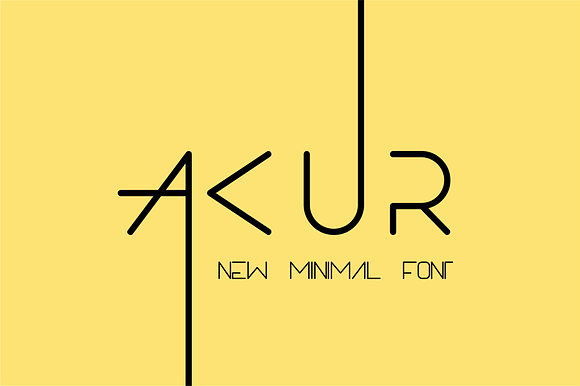
AKUR Font
AKUR is simple but significant, and defined by its crisp edges and modern touches. It is designed for optimal legibility. An all caps sans-serif, AKUR makes a statement without making a scene.
AKUR Font by Akdesain fits naturally into Branding, posters, packaging, typography.